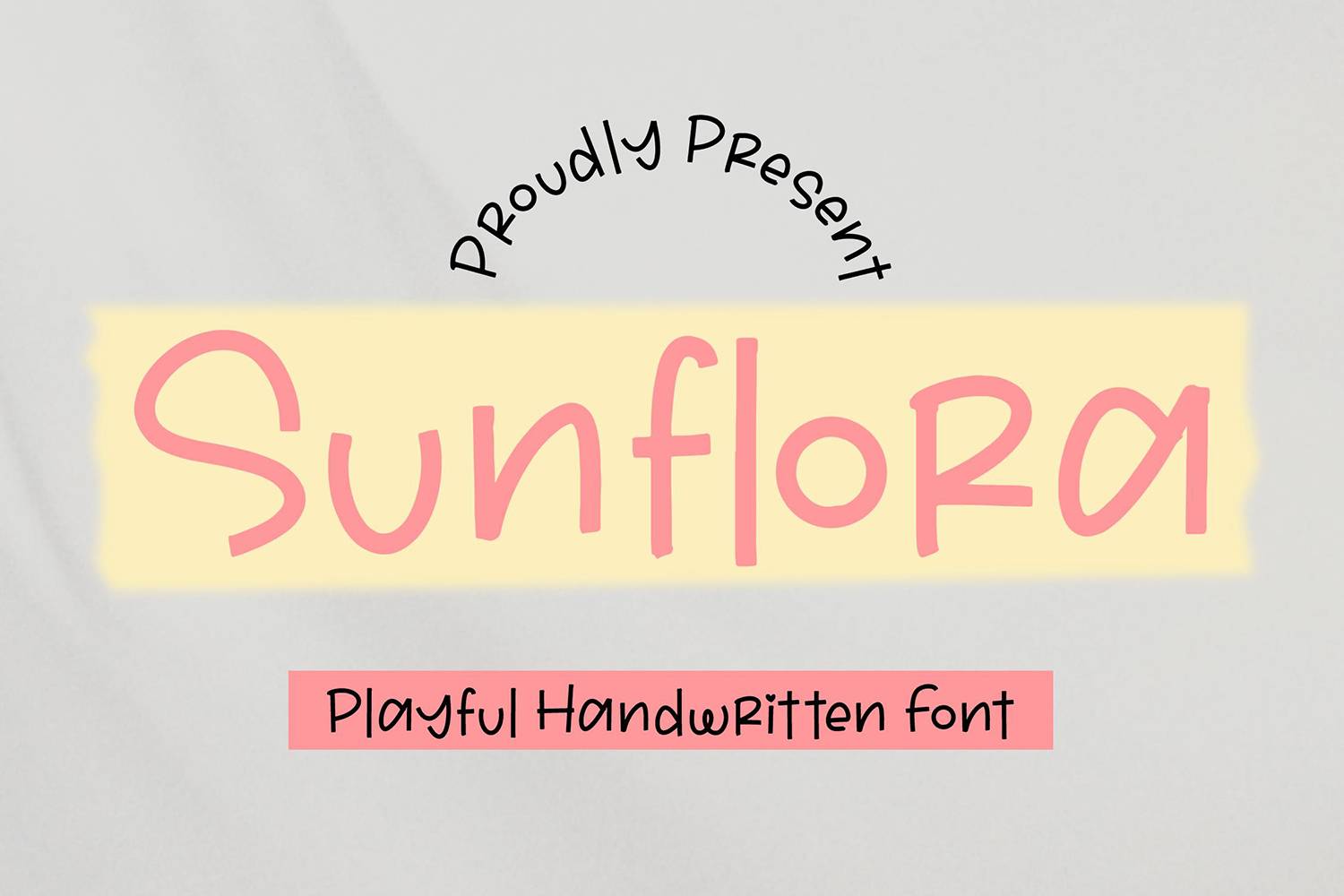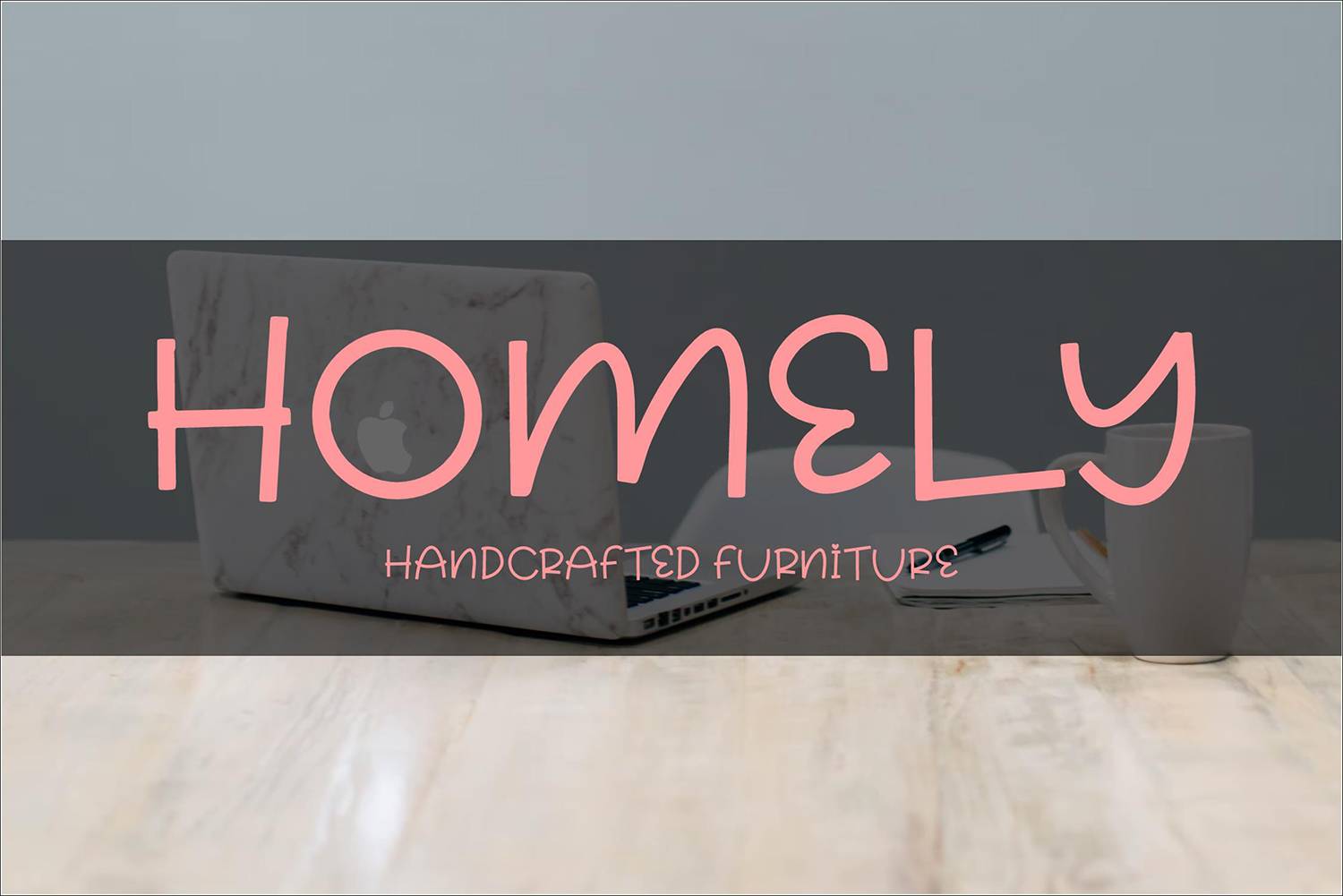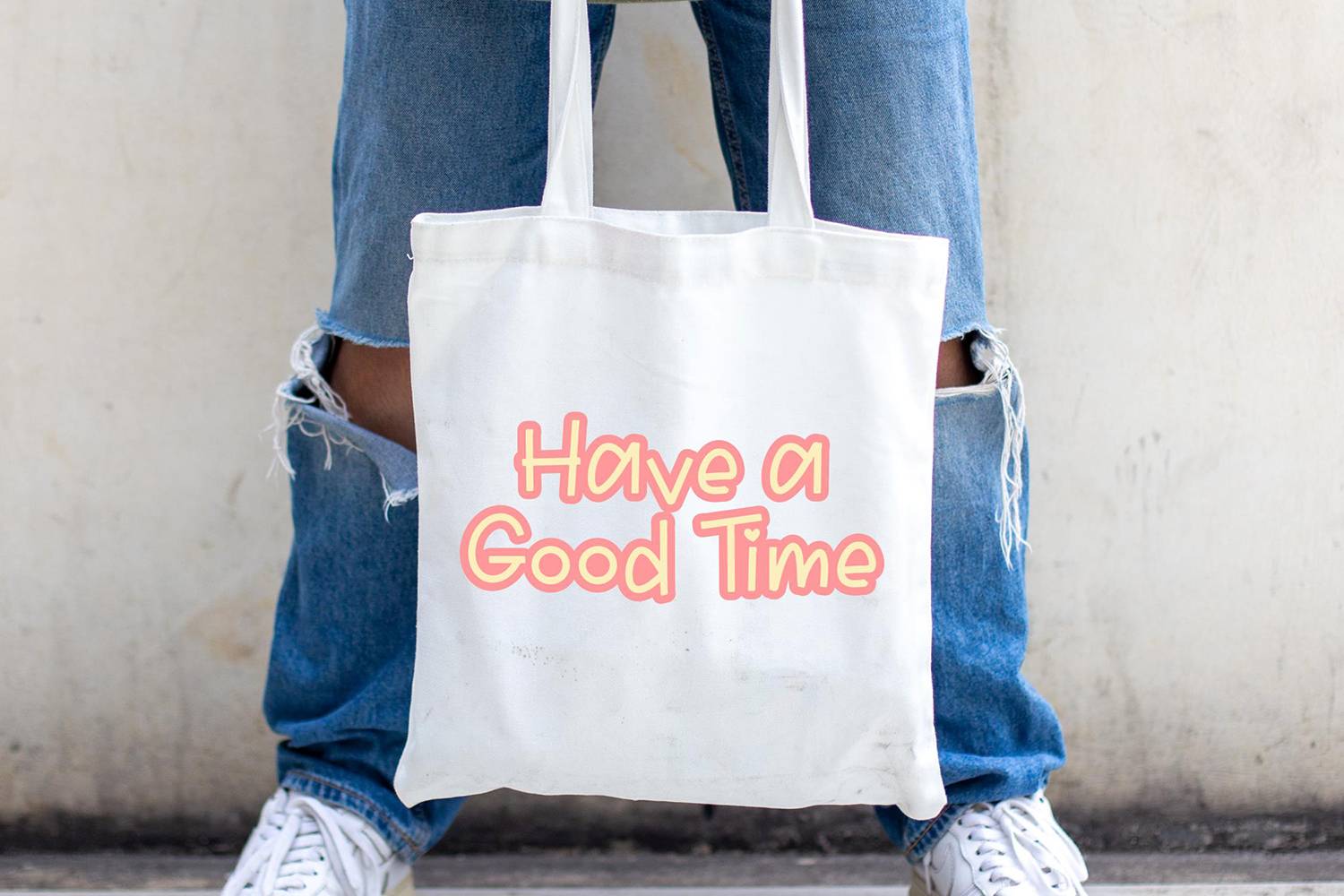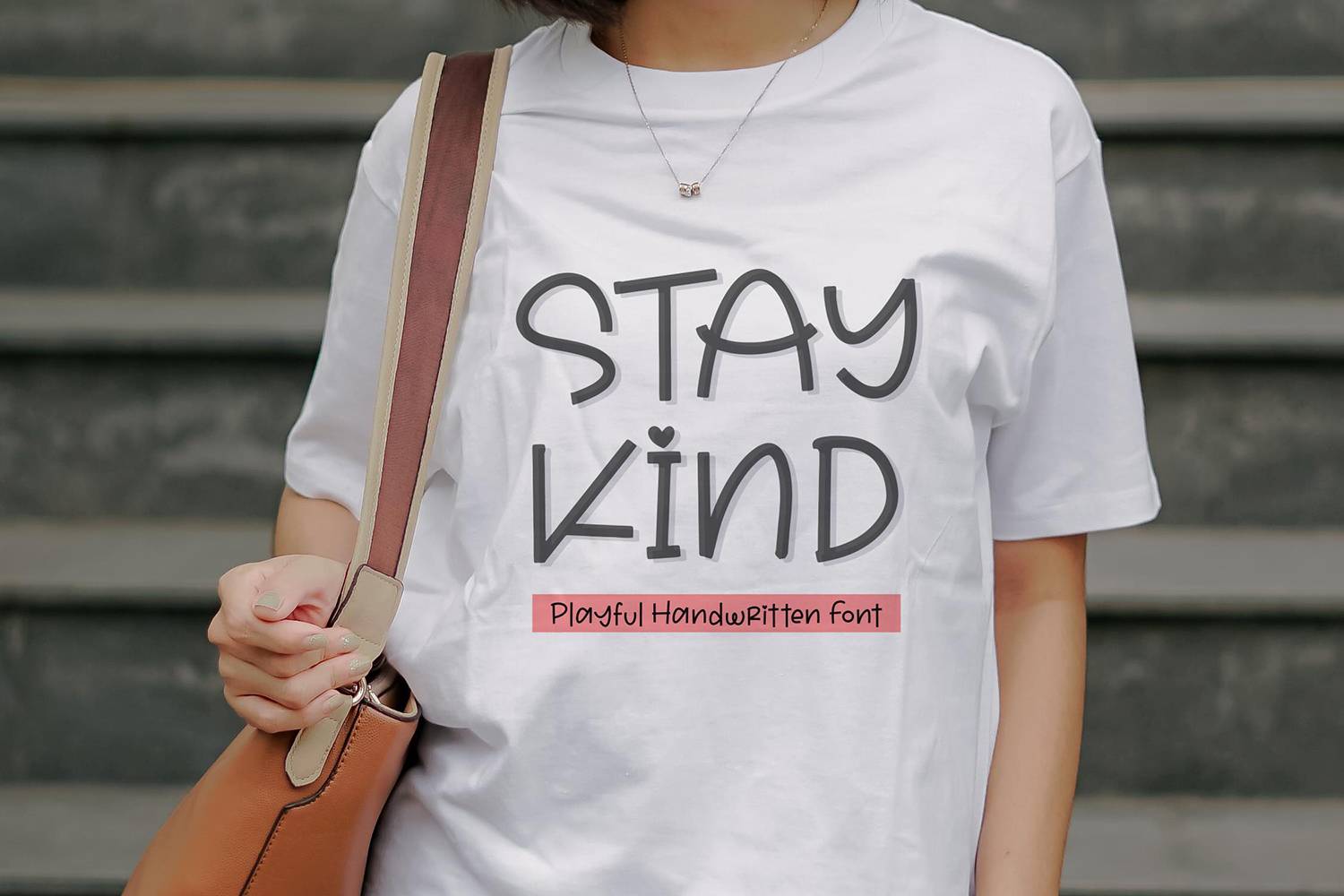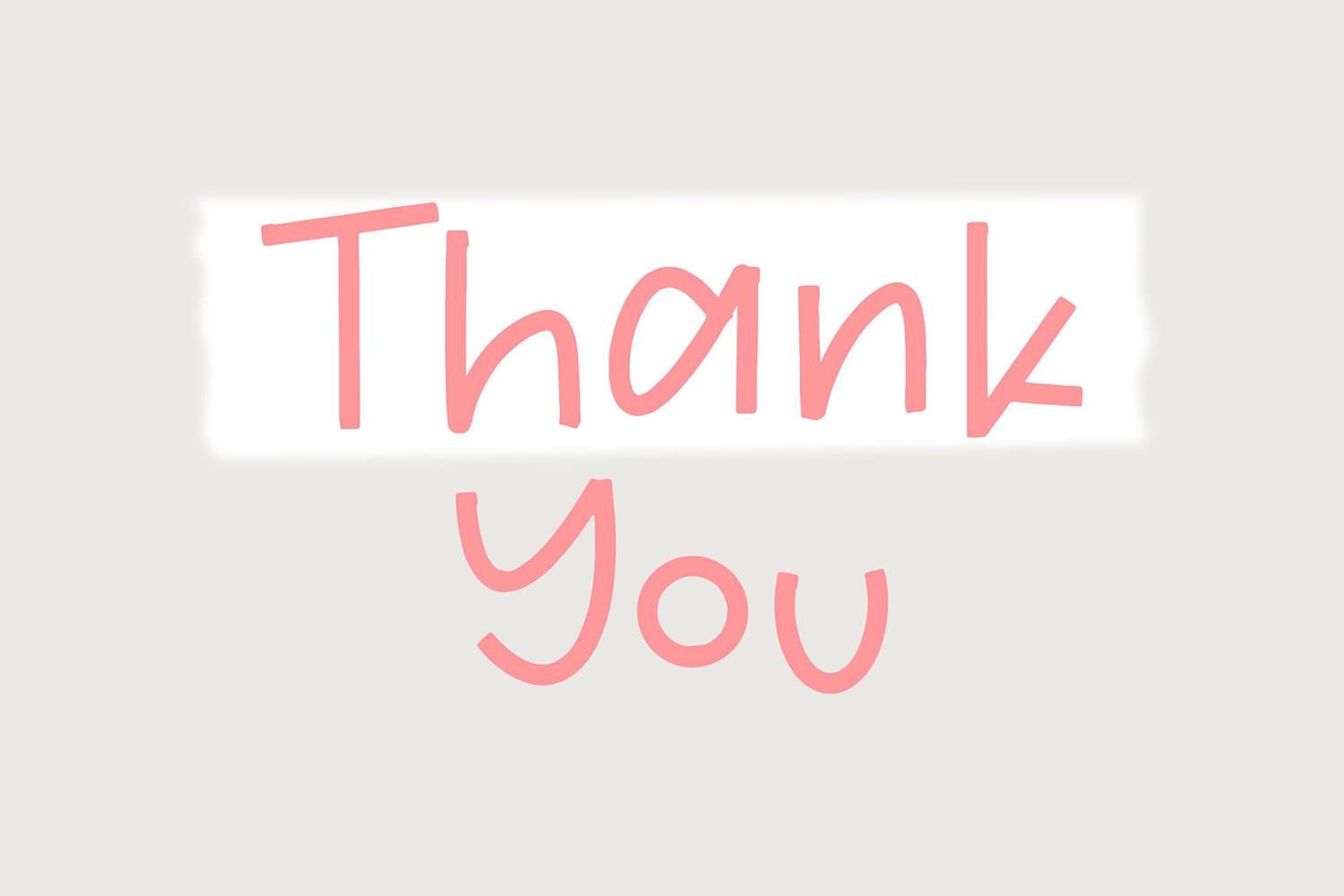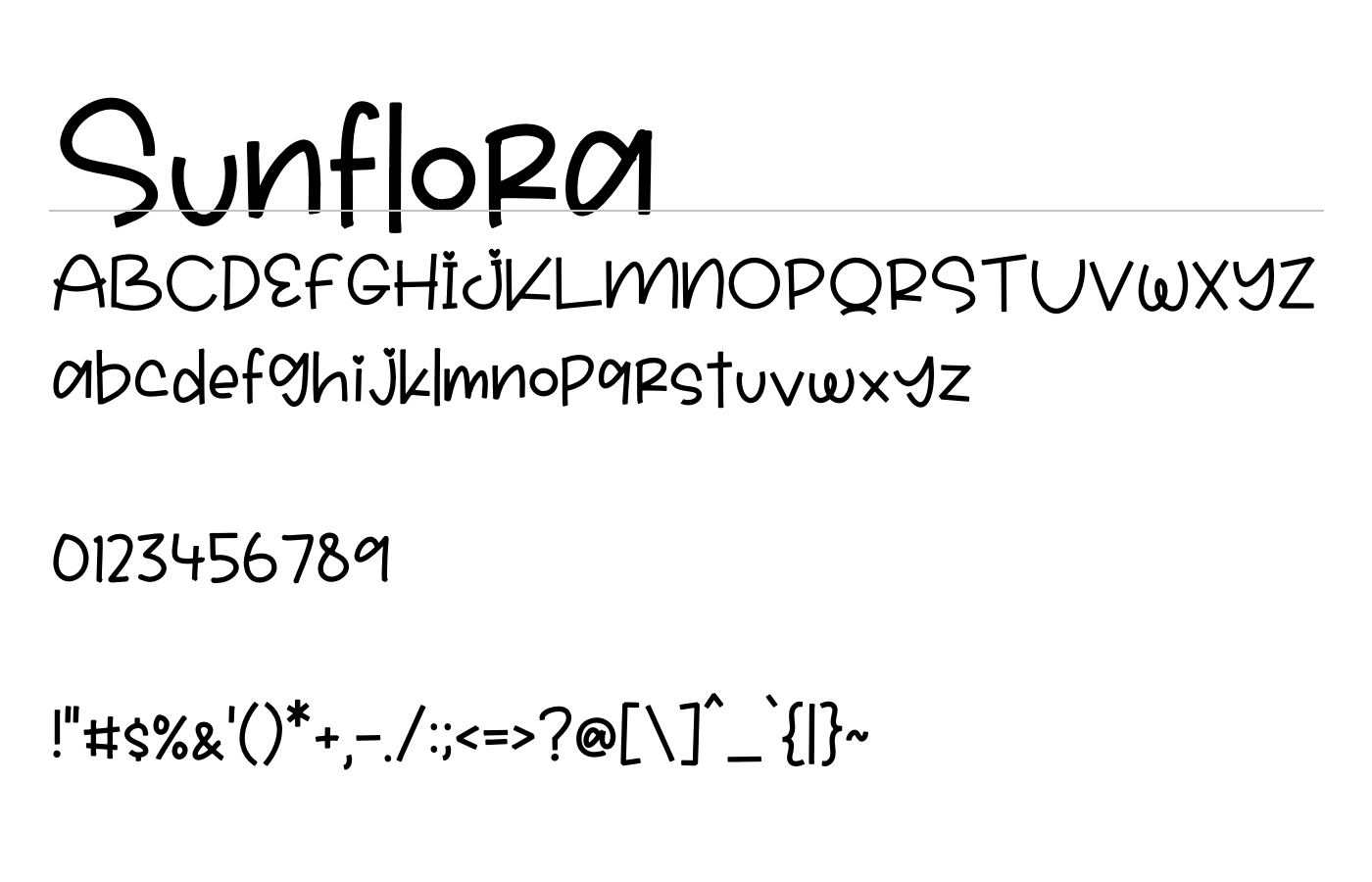
Sunflora is a playful, casual handwritten sans serif font with a friendly, organic feel. Its irregular, whimsical letterforms with small heart details add charm and personality, making it perfect for creative, fun projects like children’s books, greeting cards, and informal branding that seeks a warm, approachable vibe.
Sunflora Font
About Sunflora Font